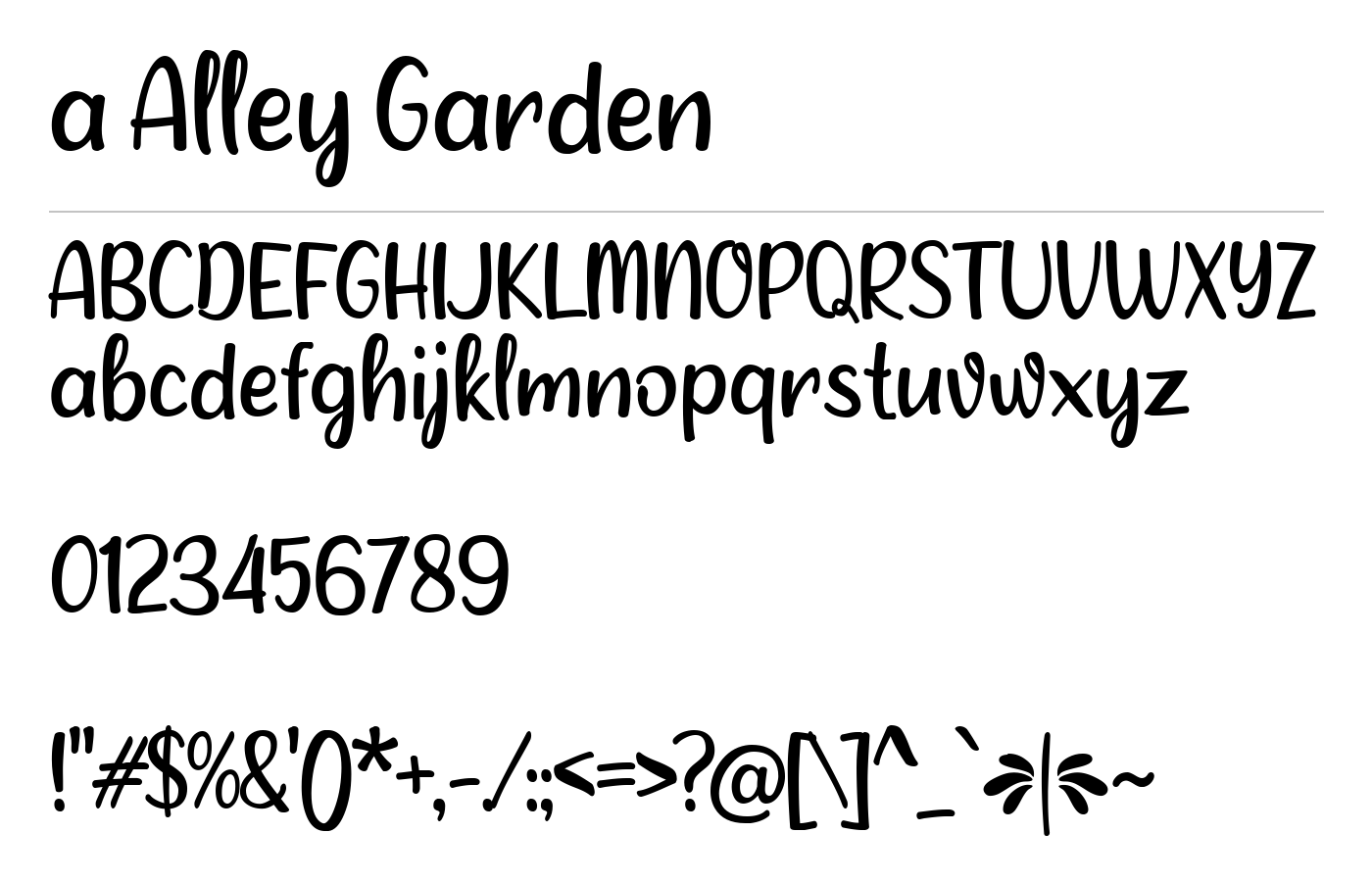
Alley Garden is a playful, hand-drawn sans serif font with a casual and friendly vibe. Its rounded, slightly irregular letterforms and medium weight create an approachable and lively appearance, perfect for projects that want to convey warmth and creativity. This font works well for informal branding, children’s materials, greeting cards, and any design aiming for a charming, handcrafted feel.
a Alley Garden Font